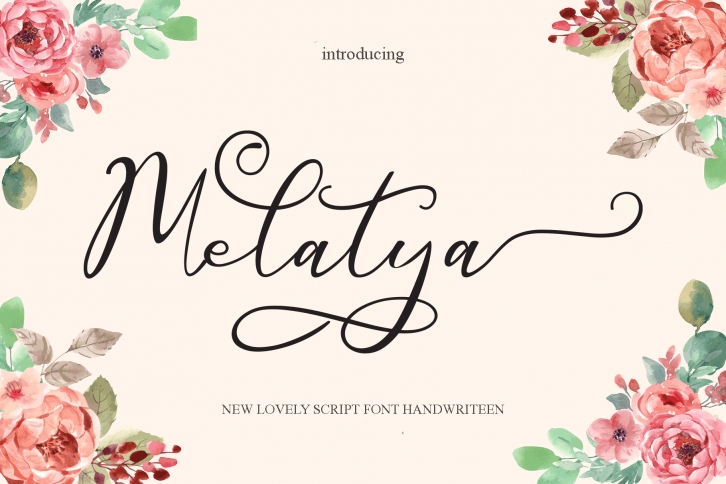
Melatya is a romantic and sweet calligraphy typeface with characters that dance along the baseline. It will add a luxury spark to any design project that you wish to create! This font is PUA encoded which means you can access all of the amazing glyphs and ligatures with ease!